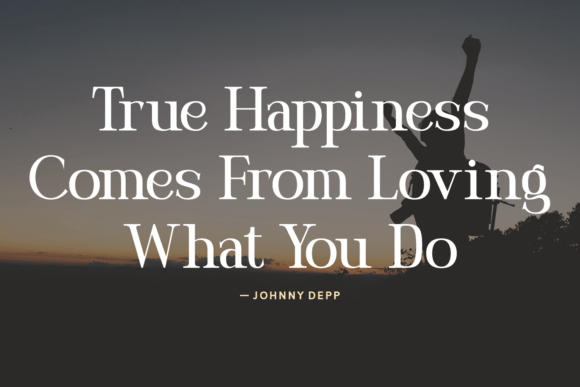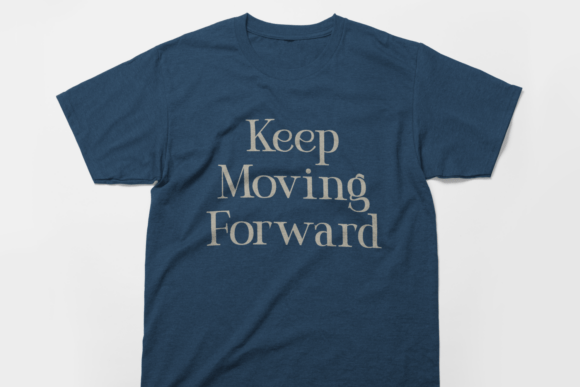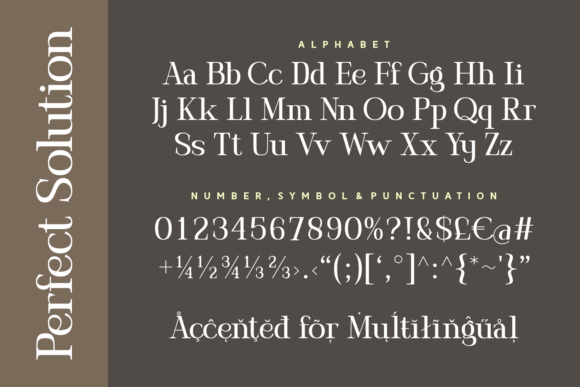
Introduction to Perfect Solution Font
Have you ever found yourself staring at a blank page, trying to find the perfect font to bring your creative project to life? It’s a moment we’ve all been there – the struggle to convey a message with clarity and elegance, all while making a lasting impression. But what if I told you that there’s a font that can make that moment a thing of the past? Enter the Perfect Solution Font, a refined serif font that’s designed to deliver a message with both clarity and grace.
As a valuable design resource, the Perfect Solution Font is ideal for business branding, editorial layouts, professional presentations, and timeless logos. Its elegant proportions and balanced structure make it a high-quality addition to any creative project. Plus, with a transparent background, you can easily customize it to fit your needs. And the best part? It’s available for free download, making it a must-have for designers looking to elevate their work.
Key Features of Perfect Solution Font
- High-quality design with a transparent background, ideal for creative projects requiring a clean and minimalist aesthetic.
- Features a high-resolution design, suitable for use in a variety of applications, from print materials to digital displays.
- Designed with flexibility in mind, Perfect Solution Font is perfect for use in a range of creative projects, from logos and branding to digital art and design.
- Each character is carefully crafted to ensure a seamless and professional-looking result, making it a valuable addition to any designer’s toolkit.
Honest Review: Perfect Solution Font
I recently stumbled upon the Perfect Solution Font, and I must say it’s been a game-changer for my creative projects. The moment I downloaded it, I knew I was in for a treat.
Here are some of the things that work well: ✨ It’s a high-quality font with a clean and modern design, perfect for any design resource. The transparent background makes it easy to use in various backgrounds, and it’s incredibly versatile. I’ve used it for everything from logos to social media graphics.
Other pros include:
- It’s highly customizable, allowing me to tweak it to fit my specific design needs.
- It’s available in multiple weights and styles, giving me endless options for my designs.
While it’s not without its limitations, I’ve found the Perfect Solution Font to be a valuable addition to my design toolkit. However, I do wish it had more language support. ⚠️ This might be a deal-breaker for some designers, but for me, it’s a minor issue.
Overall, I’m thoroughly impressed with the Perfect Solution Font. It’s a high-quality design resource that’s perfect for any creative project. I highly recommend it to fellow designers looking for a reliable and versatile font.
The Perfect Solution Font is a high-quality, free download font designed to elevate your creative project. Its transparent background and sleek design make it an ideal design resource for various applications.
To get the most out of the Perfect Solution Font, try combining it with other design elements, such as graphics and images, to create a visually appealing design. Experiment with different font sizes and colors to find the perfect balance for your creative project.
The Perfect Solution Font is ideal for various design projects, including:
- Websites and social media graphics